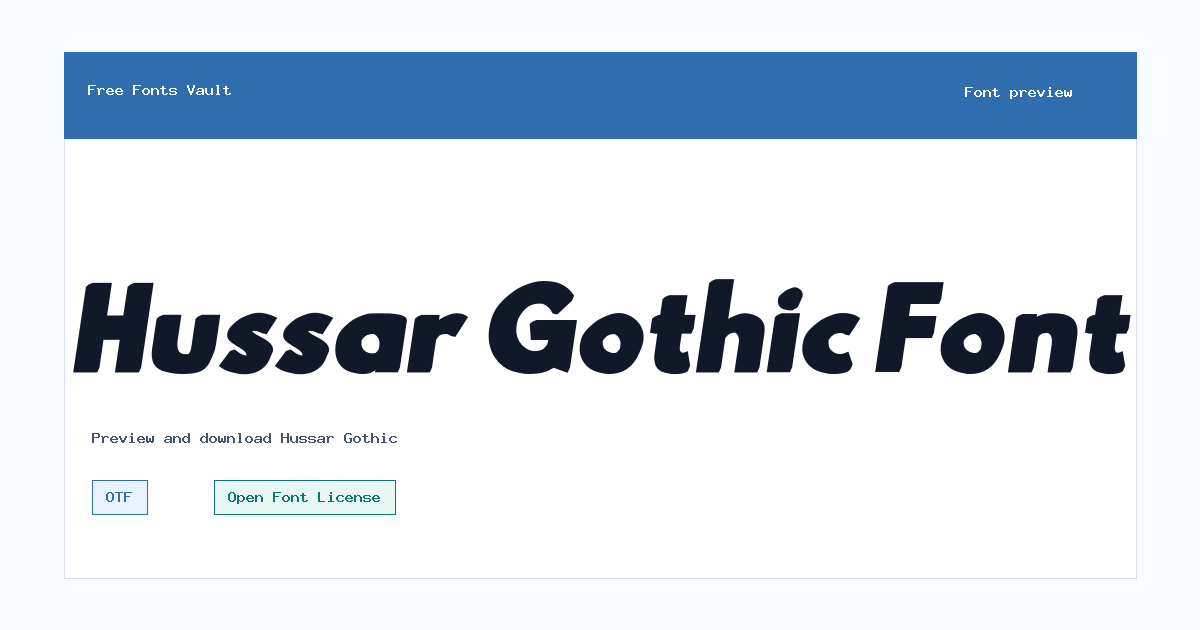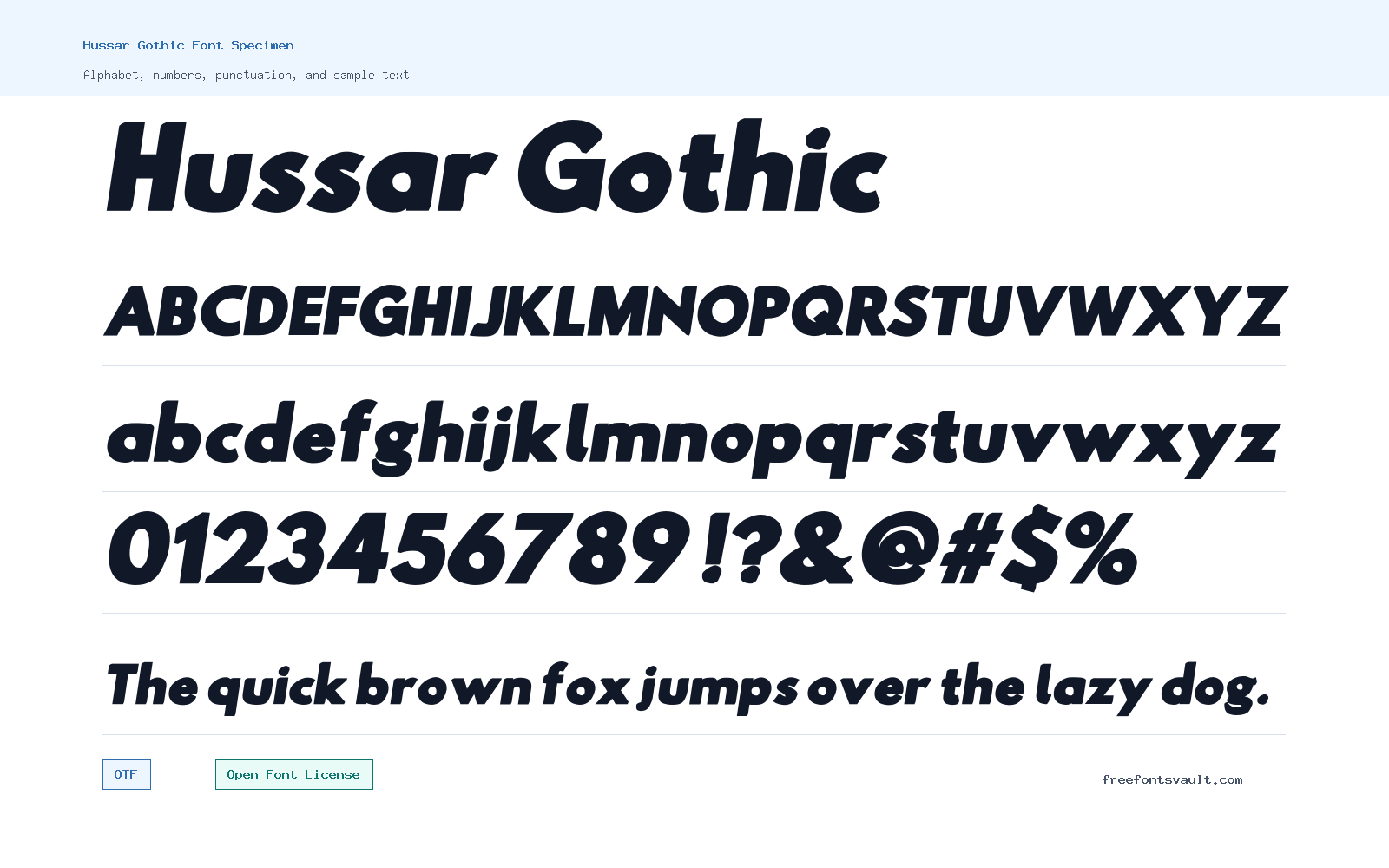
Hussar Gothic
Hussar Gothic Oblique is an ultra-black display sans, not a traditional blackletter font. Robert Jablonski / Cannot Into Space Fonts used “Gothic” in the older American sans-serif sense and slanted this cut for a forceful poster rhythm.
What the reviewed file shows
The specimen shows very heavy strokes, rounded geometric counters and an oblique angle across both cases. The lowercase a is single-storey, the capital G has a compact opening, and the numerals occupy substantial width. Despite the weight, the terminals are softly shaped rather than spiked, so the voice is closer to an early poster sans than Fraktur or Old English lettering.
Use Hussar Gothic Oblique for one large headline, badge, game title or label that needs motion. It is not a body face, and the heavy counters can close under an outline or at small size. Give it generous tracking and pair it with a quiet upright sans serif for every explanatory line.
The publisher description says the face began as an ultra-black late-1800s/early-1900s-style “Gothic” sans serif. That context corrects the earlier page wording, which could be mistaken for blackletter. This approved local record contains only the Oblique file, not the upright Ultra style.
Test a short uppercase title and the same words in mixed case. Watch counters in e, a, 8 and 9. If they fill in, remove the outline or enlarge the type. Do not reduce tracking merely to force a long sentence onto one line.
Questions about Hussar Gothic
Is Hussar Gothic a blackletter font?
No. The publisher describes it as an ultra-black historical-style “Gothic” sans serif; here “Gothic” uses the older sans-serif meaning.
Why is the weight shown as 900?
The OTF’s OS/2 table reports weight class 900. The previous 400 value was a directory metadata error.